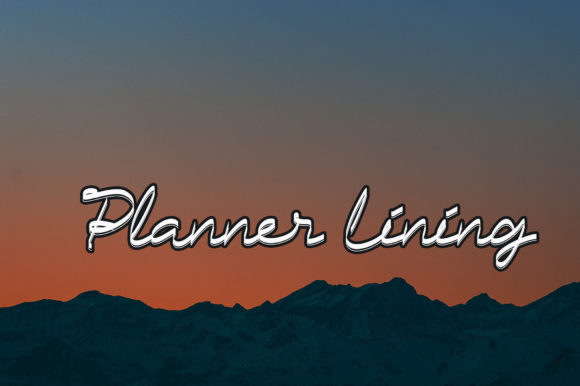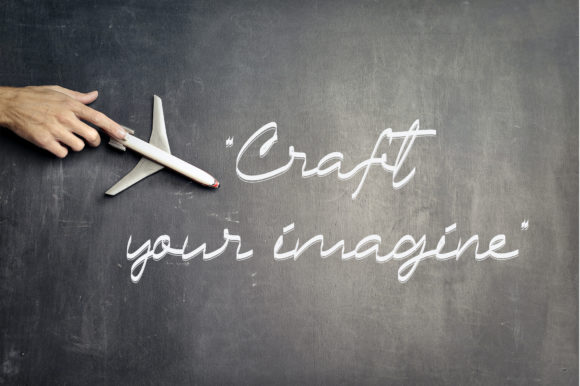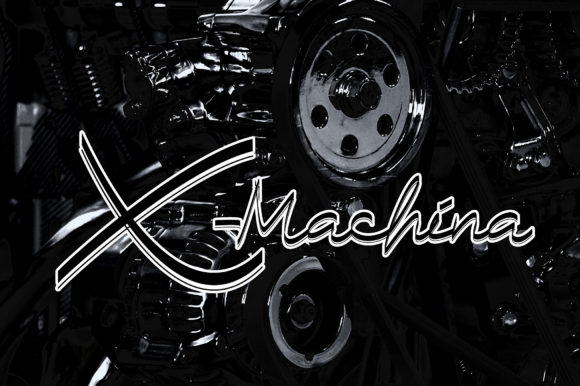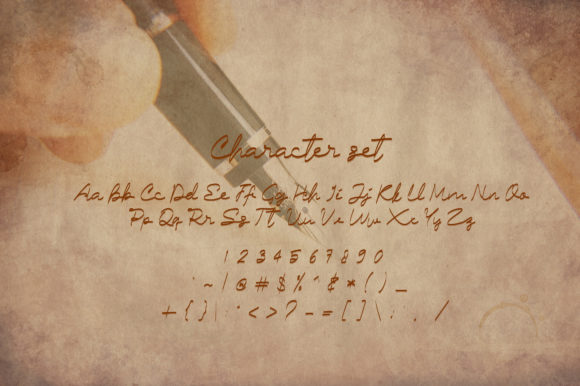
Introduction to Planner Lining Font
As a designer, there’s nothing quite like the rush of creating something new and beautiful. The blank page stares back at you, waiting for your creativity to bring it to life. You’ve got a vision, a concept, a message to convey, and the right font can make all the difference. For me, that font is often Planner Lining Font, a stunning cursive script that elevates any design to new heights.
With its unique, hand-crafted feel and high-quality aesthetic, Planner Lining Font is the perfect choice for logos, branding, and quotes. Whether you’re working on a personal project or a commercial design, this font is sure to make your work stand out from the crowd.
Key Features of Planner Lining Font
- High-quality design resource perfect for creative projects, offering a unique and elegant touch.
- Planner Lining Font comes in a single weight, ideal for creating clean and minimalist designs.
- Unique characteristics include its modern and sleek design, making it perfect for planners, journals, and other creative projects.
Honest Review: Planner Lining Font
I recently stumbled upon the Planner Lining Font and was excited to give it a try. The first thing that caught my attention was the high quality of the font, which is perfect for any creative project.
- Easy to read and use
- Perfect for planners, journals, and scrapbooking
Overall, I’m very impressed with the Planner Lining Font. It’s a great addition to any design resource, and I’m excited to use it in future creative projects. ⚠️ Just be aware of the limitations, and you’ll be all set! ✨
Introduction to Planner Lining Font
Planner Lining Font is a high-quality design resource ideal for creative projects. Its transparent background makes it easy to use in various design applications.
Experiment with different font sizes and styles to create unique and eye-catching designs. Combine Planner Lining Font with other design elements to add depth and visual interest to your projects.
Planner Lining Font is ideal for:
- Creating planners, journals, and printables